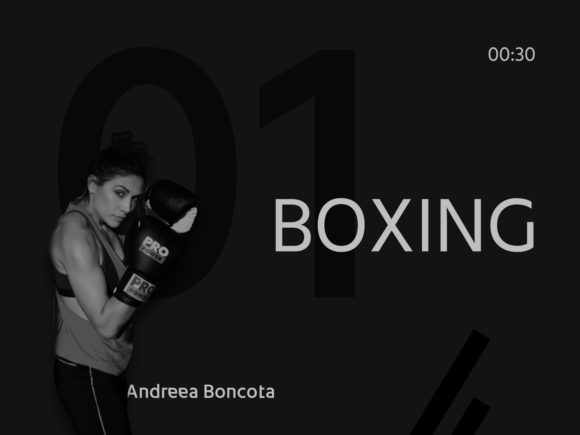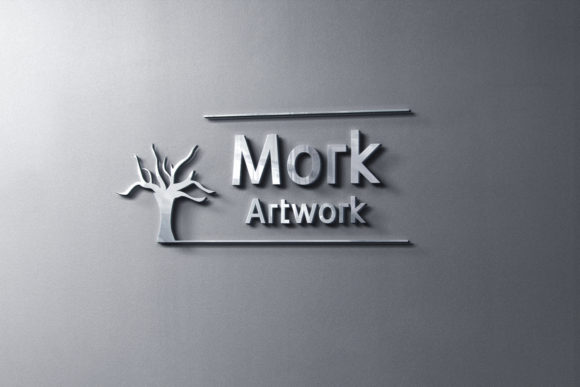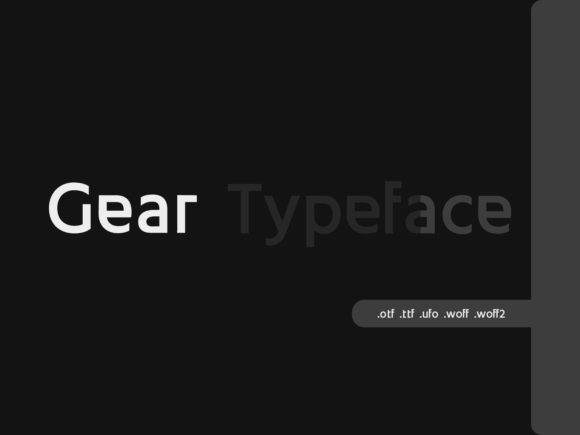
Introducing Gear Font: The Ultimate Modern Sans Serif for Designers
In the world of typography, a good font can make all the difference in a design project. For designers and crafters looking for a modern and elegant sans serif font, Gear Font is an excellent choice. This versatile typeface is perfect for creating stunning headlines, logos, branding, and packaging that will leave a lasting impression.
What Makes Gear Font Stand Out?
Gear Font is a modern sans serif font that boasts a sleek and sophisticated design. Its clean lines, precise curves, and balanced proportions make it an ideal choice for both formal and non-formal designs. The font’s elegant appearance is sure to elevate any design project, from luxury branding to creative packaging.
Key Features of Gear Font
• Modern and Elegant Design: Gear Font features a contemporary sans serif design that exudes sophistication and style.
• Versatile and Adaptable: This font is perfect for a wide range of design applications, including headlines, logos, branding, and packaging.
• Formal and Non-Formal Designs: Gear Font’s clean and elegant design makes it suitable for both formal and non-formal designs.
• Excellent Legibility: The font’s clear and precise design ensures excellent legibility, even at smaller font sizes.
Why Choose Gear Font?
With so many fonts available, why choose Gear Font? Here are a few compelling reasons:
• Unique and Distinctive: Gear Font’s modern design sets it apart from more traditional sans serif fonts.
• High-Quality Design: The font is meticulously crafted to ensure a high level of quality and attention to detail.
• Multipurpose: This font can be used for a wide range of design projects, from print to digital media.
Design Applications for Gear Font
Gear Font’s versatility makes it suitable for various design applications, including:
• Headlines and Titles: The font’s bold and elegant design makes it perfect for headlines and titles.
• Logo Design: Gear Font’s unique design makes it an excellent choice for logo design and branding.
• Packaging Design: The font’s clean and modern design is ideal for packaging design, product labels, and more.
• Digital Media: Gear Font can be used for digital media, including website headers, social media graphics, and more.
Tips for Using Gear Font Effectively
To get the most out of Gear Font, here are some tips for using it effectively:
• Experiment with Font Sizes: Gear Font’s excellent legibility makes it suitable for use at various font sizes.
• Pair with Other Fonts: The font’s versatility makes it easy to pair with other fonts to create a unique design.
• Use for Emphasis: Gear Font’s bold design makes it perfect for use in headlines and titles to draw attention.
In conclusion, Gear Font is an exceptional modern sans serif font that is perfect for designers and crafters looking for a versatile and elegant typeface. Its clean design, excellent legibility, and adaptability make it suitable for a wide range of design applications. Whether you’re creating headlines, logos, branding, or packaging, Gear Font is an excellent choice.